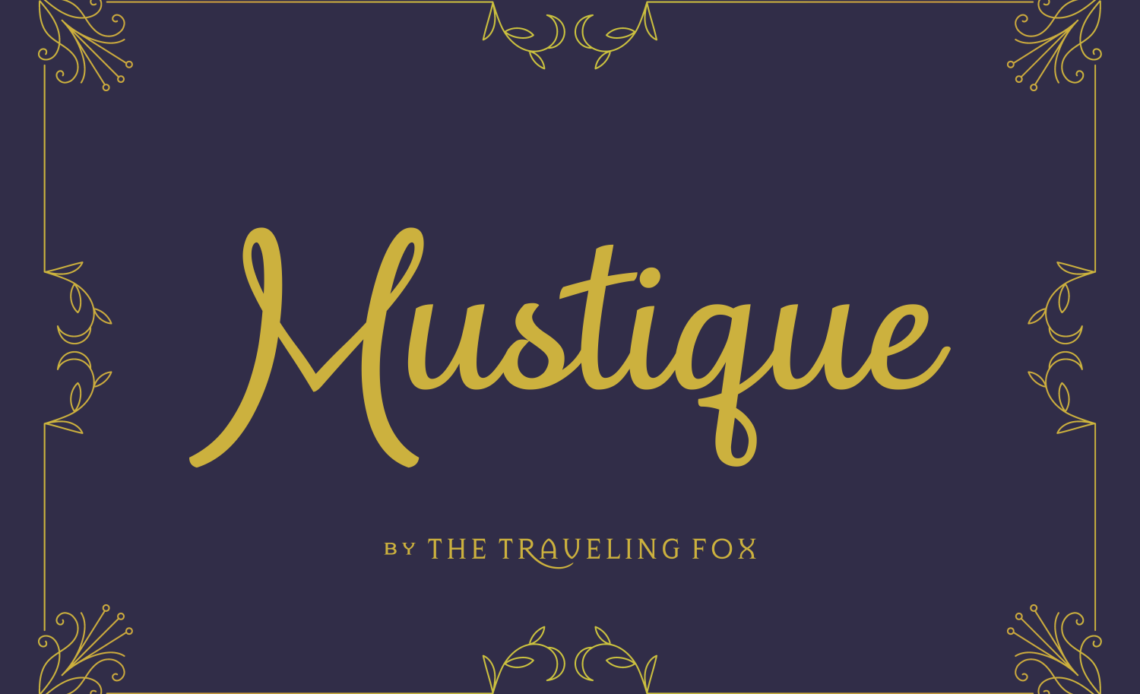
Mustique Font
Immerse yourself in the captivating world of Mustique Font, a creation of The Traveling Fox that dances across the screen with its graceful strokes. This elegant handwritten font is a visual symphony, its characters flowing effortlessly like a gentle stream, caressing your eyes with its smooth rhythm. With its steady baseline and harmonious character height, Mustique exudes a serene charm, inviting you to immerse yourself in its tranquil embrace.
Step into a realm of boundless creativity, where Mustique Font becomes your artistic muse. Whether you're designing personal projects or crafting corporate masterpieces, this versatile font adapts seamlessly to your vision, adding a touch of sophistication and charm. Its innate ability to balance elegance and playfulness makes it a perfect choice for a multitude of projects, from heartfelt invitations to captivating social media posts.
With Mustique Font, your words take on a new life, imbued with a touch of whimsy and a hint of allure. Its free-flowing nature lends itself beautifully to logos and branding, infusing your designs with a unique personality that captures the essence of your brand. Let Mustique Font be the voice of your creativity, guiding you through a journey of exceptional design.